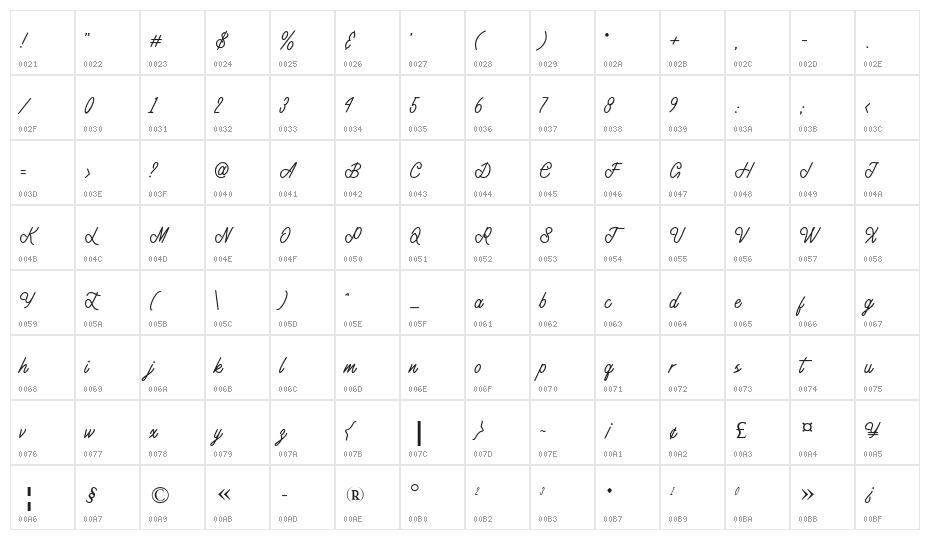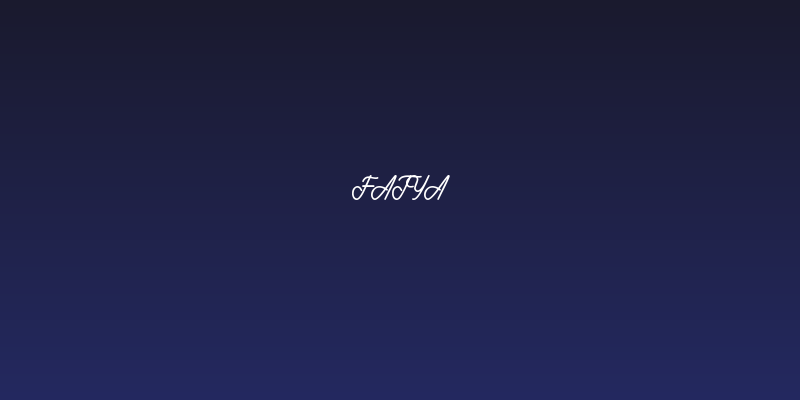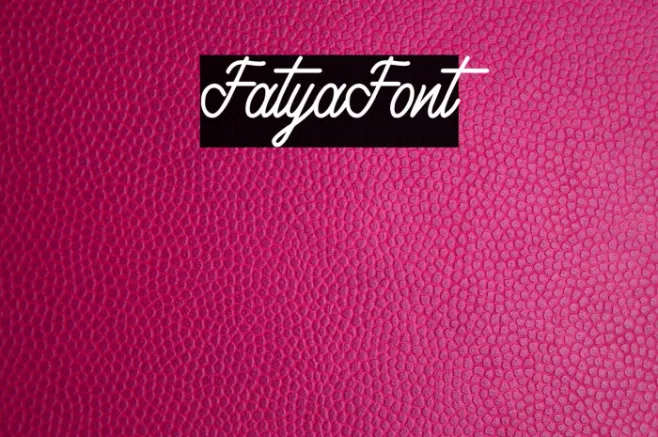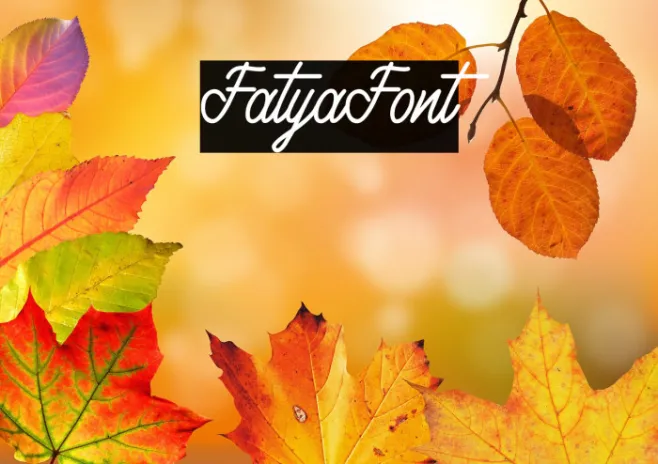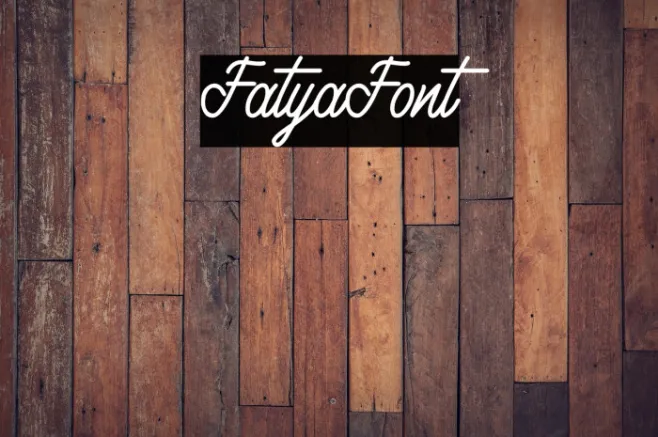
Fatya Font
Fatya Description
This elegant script font features a flowing, cursive style with smooth, connected strokes that create a sense of fluidity and grace. The uppercase letters are slightly more ornate, with subtle flourishes that add a touch of sophistication. The lowercase letters maintain a consistent rhythm, enhancing readability while preserving the font's decorative appeal. Numbers and special characters are designed to complement the overall aesthetic, ensuring versatility across various applications. The font's delicate curves and moderate contrast in stroke thickness make it suitable for projects that require a touch of elegance and personal flair.
| Use Case | Logos, Invitations, Personal stationery |
| Proposed Projects | Ideal for wedding invitations, greeting cards, elegant branding, and personal stationery. |